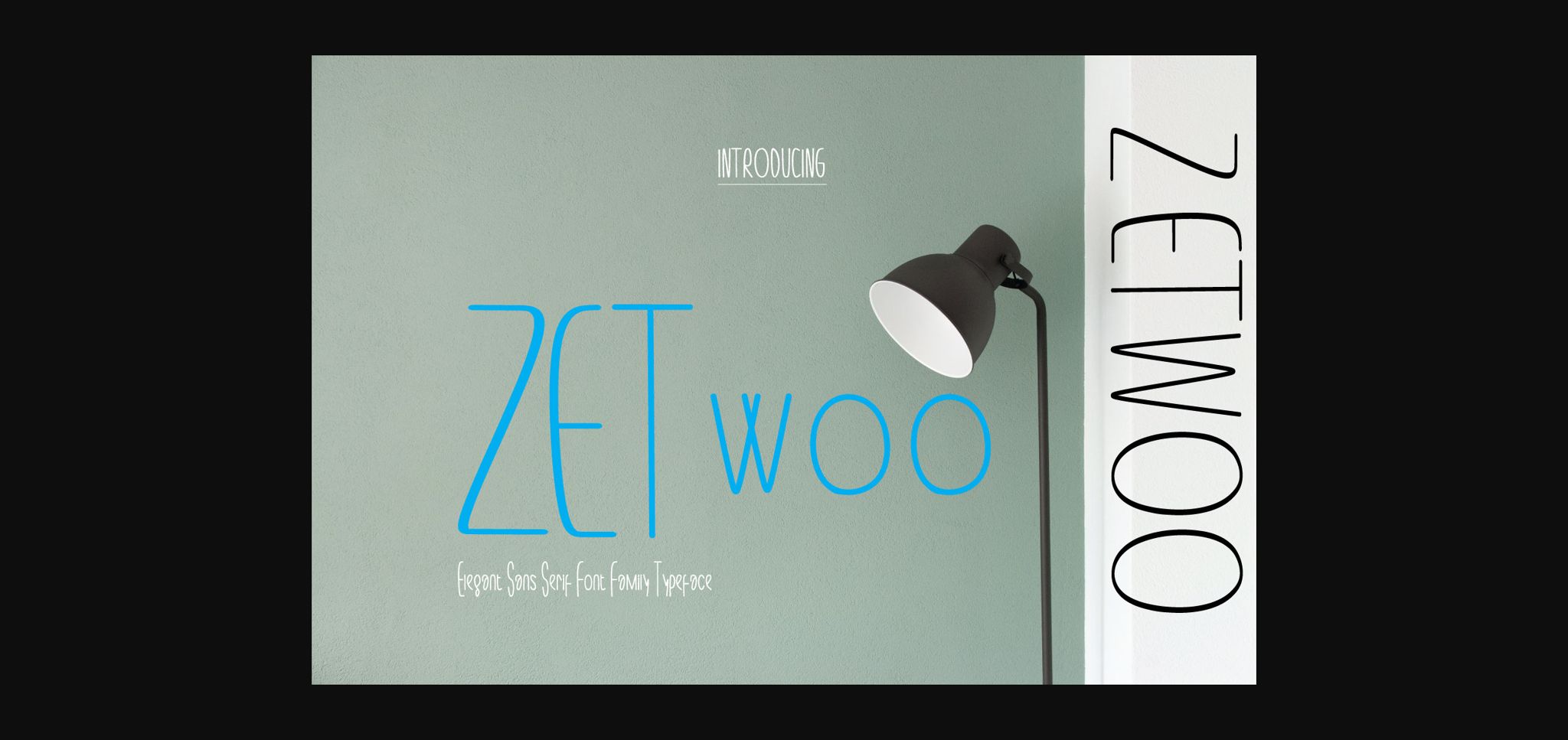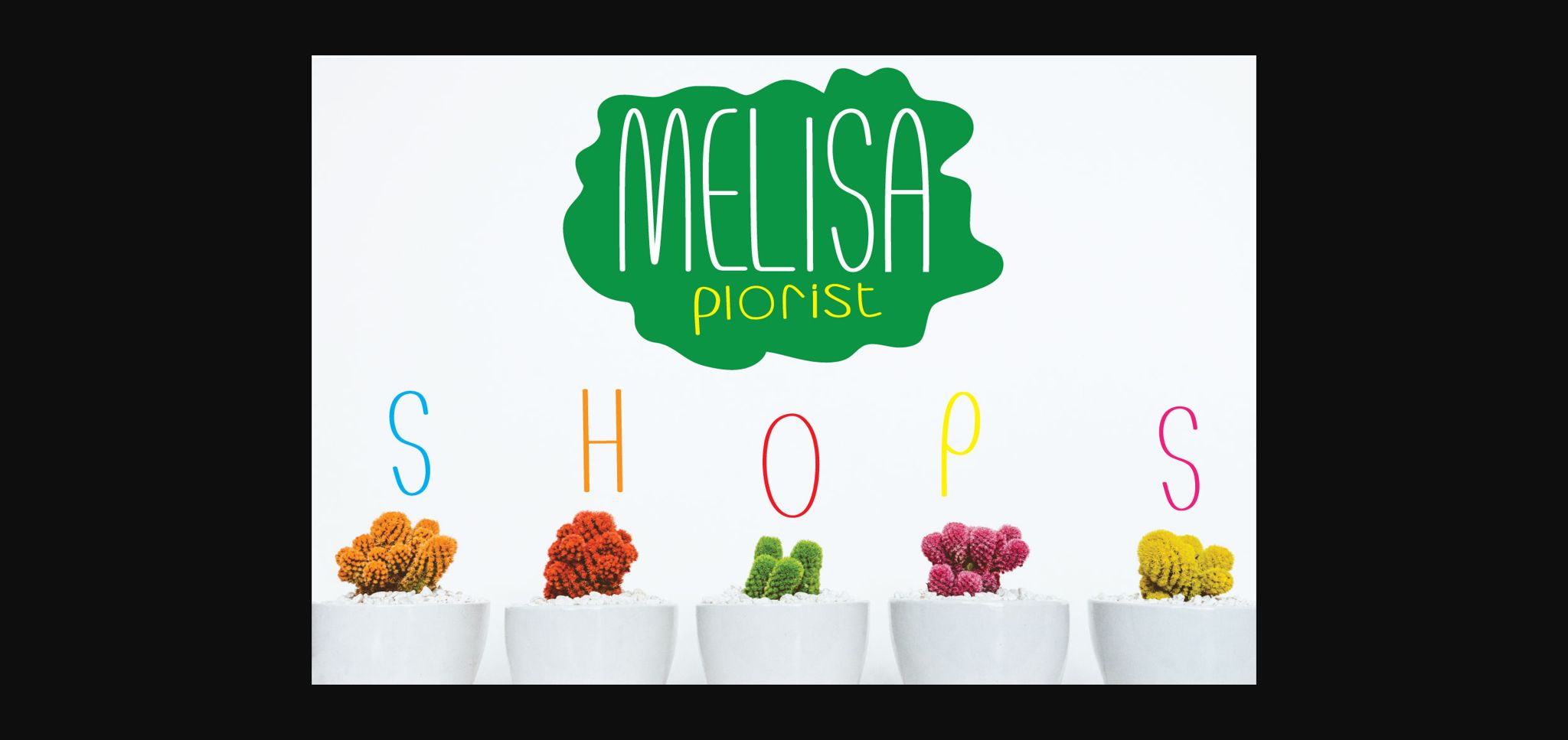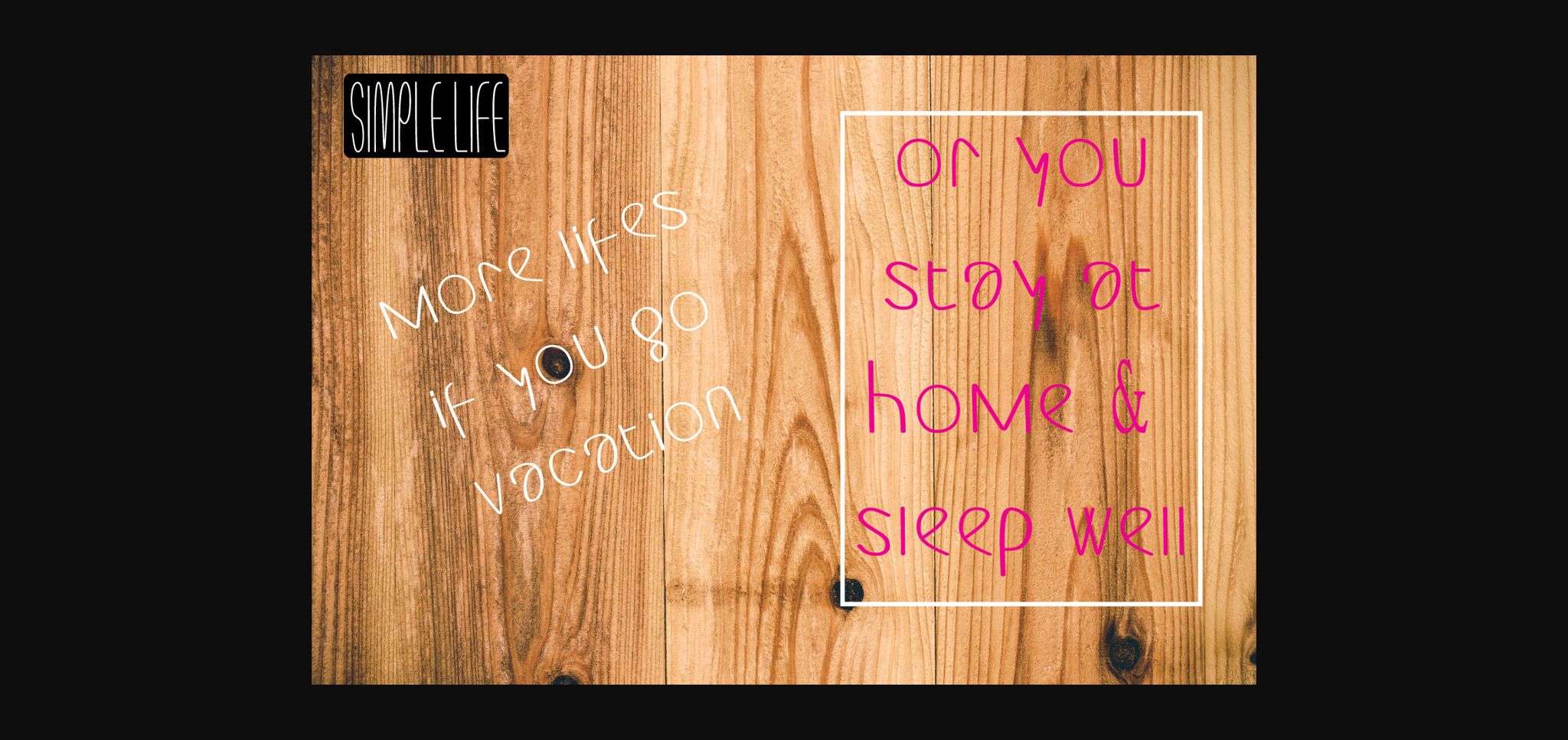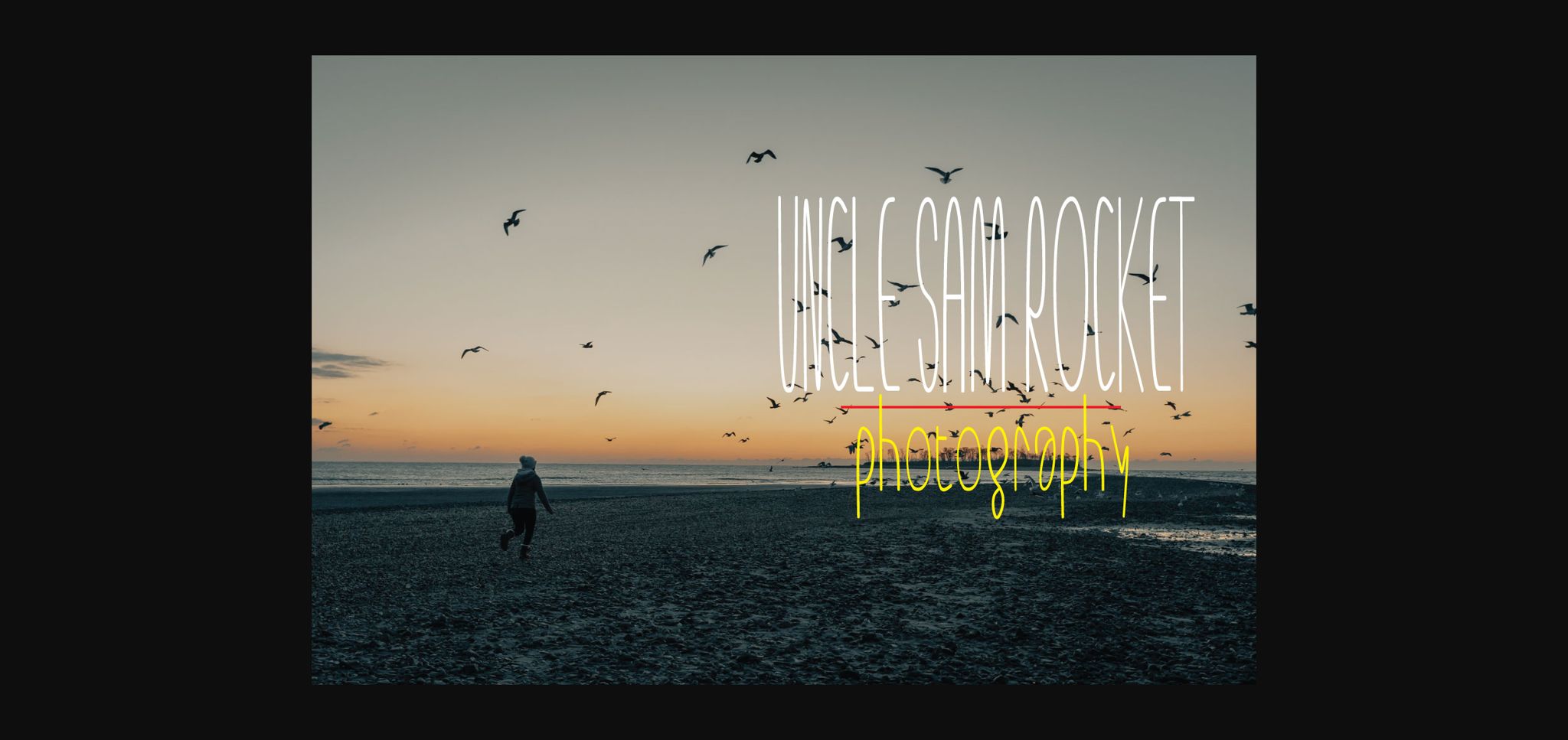
HomeSans Serif FontsZETwoo Font Sans Serif Fonts ZETwoo Font FacebookXPinterestWhatsApp 1 of 7 ... ZETwoo Font Poster 2... ZETwoo Font Poster 3... ZETwoo Font Poster 4... ZETwoo Font Poster 5... ZETwoo Font Poster 6... ZETwoo Font Poster 7... About ZETwoo Font ZETwoo is sans serif font which natural movement and an elegant modern style. This font is perfect for branding projects, logos, wedding designs, social media posts, advertisements and any projects that need modern taste. DOWNLOAD NOW People also explored Bokeseni Bold Condensed Italic Font Dastend Font American Signer Font Valentine Rosemary Springs Heart Font Chiko & Owlie Font Family Font Monstera Font Beautiful Dream Font Romantic Font 467 0 TagsZETwooZETwoo Font Previous articleDomestika FontNext articleKeystone Font LEAVE A REPLY Cancel reply Comment: Please enter your comment! Name:* Please enter your name here Email:* You have entered an incorrect email address! Please enter your email address here Website: Save my name, email, and website in this browser for the next time I comment. Personal Use Free Bettari Personal Use Free Read more about this font Zojihun Personal Use Free Read more about this font Breakaway Personal Use Free Read more about this font Vincent Familiante Personal Use Free Read more about this font BLOG Fonts That Capture the Spirit of New York City New York City is more than just a place—it’s an experience, a rhythm, a visual language... How to Install and Use Fonts on Windows, macOS, and Web Projects Best Fonts for T-Shirt Design – Top 2025 Picks Using Fonts in Digital Marketing: Tips to Strengthen Your Brand Identity